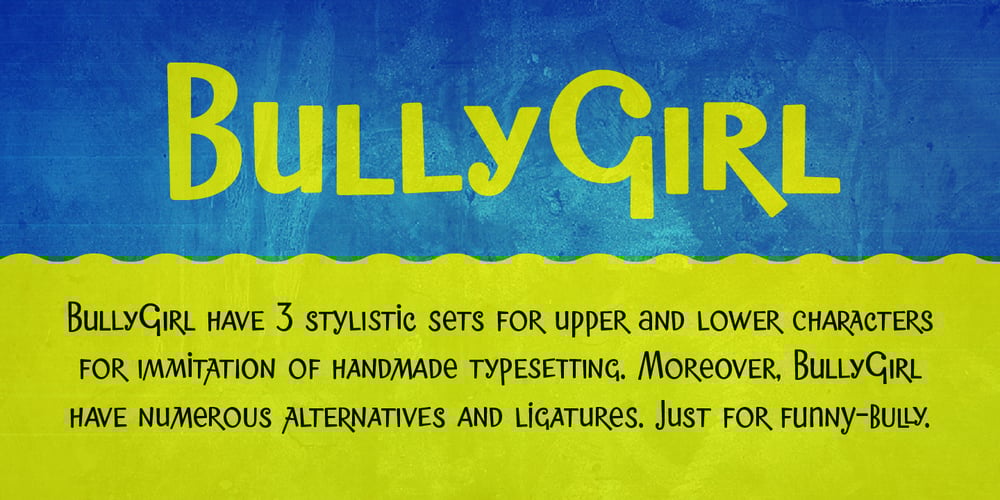
BullyGirl Font Family was designed by Valery Zaveryaev, Maria Luarvik and published by Gaslight. BullyGirl contains 7 styles and family package options. BullyGirl is a two weight irregular and rollicking font. It have 3 stylistic sets for upper and lower characters for immitation of handmade typesetting. If its not enought, you can use some characters (like ABCEHKMOPTX) from the cyrillic code page. Moreover, BullyGirl have numerous alternatives and ligatures. Just for funny-bully. Plus additional symbol font with bully characters.